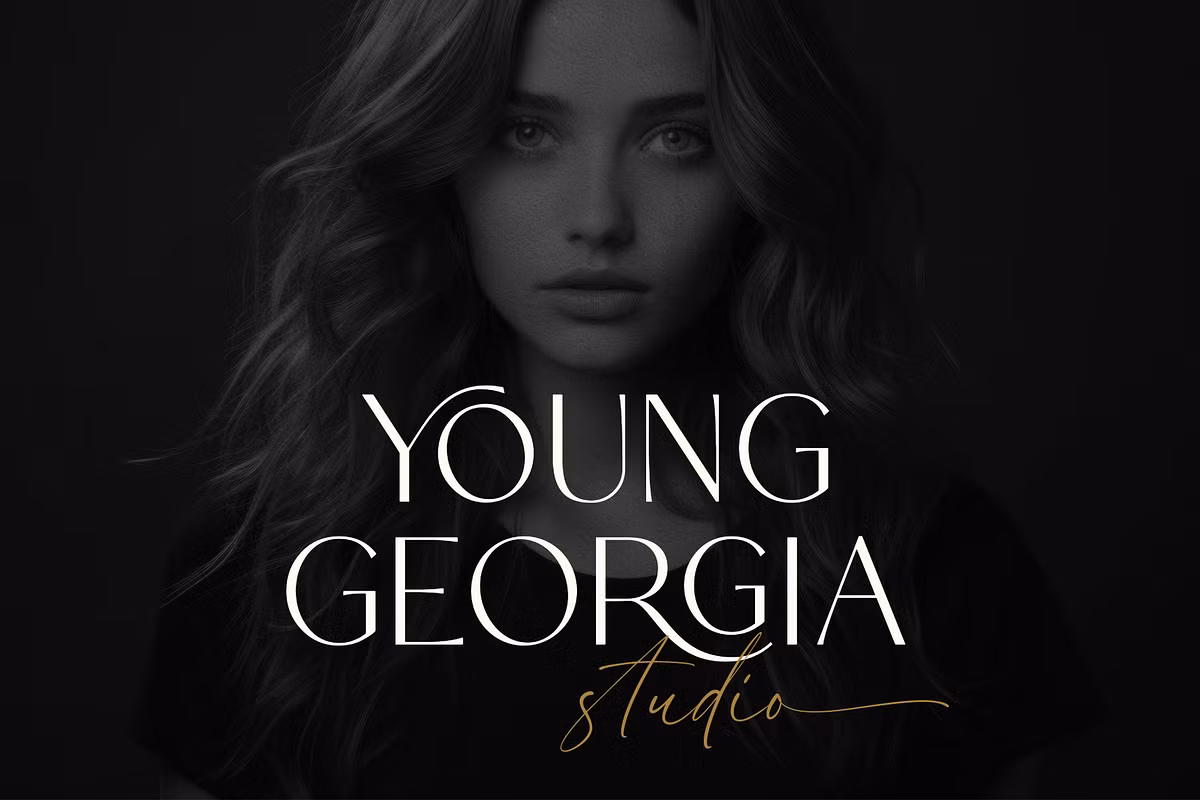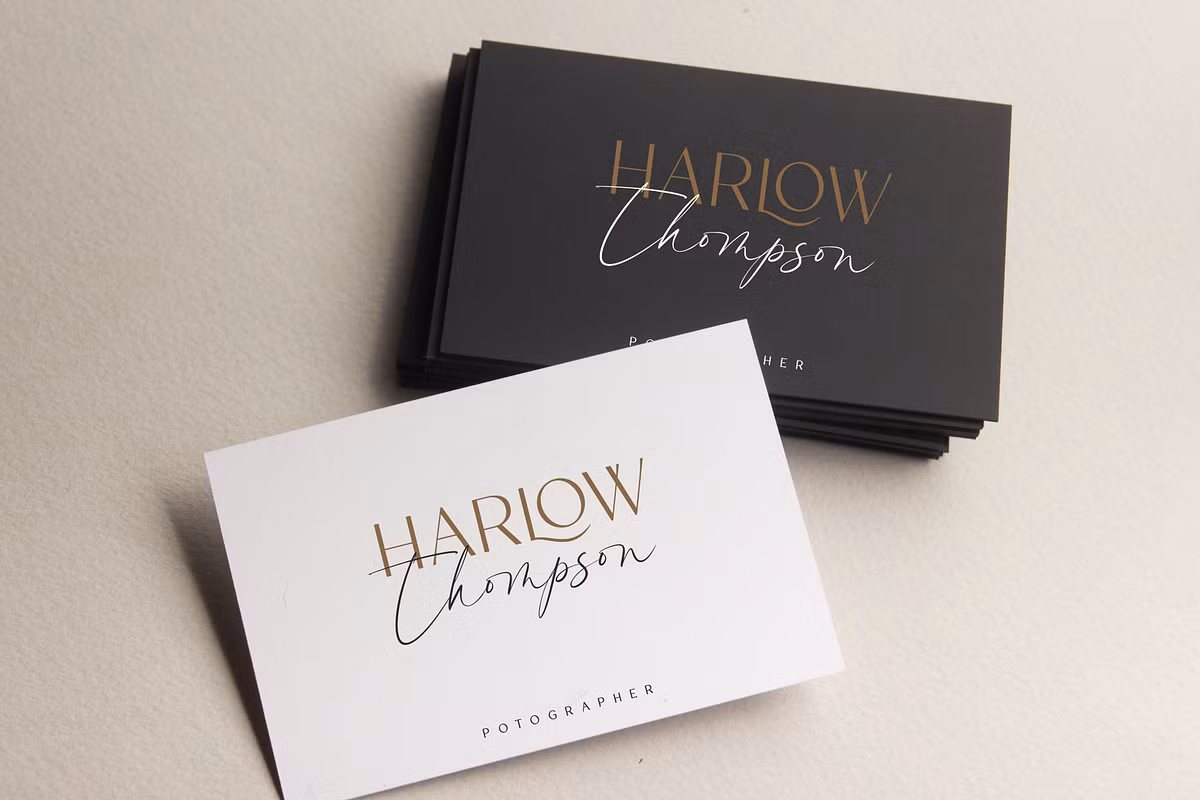
Brown Carolina: Versatile Modern Font Duo for Elegant Design
Meet Brown Carolina, a stylish font pair that combines the simplicity of a sans-serif font with the creativity of a script font. This powerful duo is designed to take your designs to the next level, offering flexibility, elegance, and a hint of classic sophistication. Here, we’ll delve into the details of Brown Carolina, including its key features, ideal uses, suggested pairings, and licensing information, making it a must-have for your design arsenal.
With its unique blend of modernity and timeless appeal, Brown Carolina is perfect for adding a touch of refinement to your projects. Whether you’re working on a professional website, a creative portfolio, or a personal blog, this font duo is sure to impress. So, let’s take a closer look at what makes Brown Carolina so special and how you can use it to elevate your designs.
The Brown Carolina font duo showcases a harmonious combination of modern aesthetics and classic elegance. The sans-serif typeface delivers a clean and contemporary look, making it suitable for a variety of design applications. Its geometric shapes and balanced proportions ensure readability while exuding sophistication.
The Brown Carolina font has a really nice handwritten feel to it, which makes it perfect for projects that need a personal touch. It’s got these beautiful, flowing lines and curves that add a lot of character to your design. When you pair it with its script version, you get a great combination that can work for both fancy and casual stuff.
This duo is really versatile, so you can use it for a lot of different things, from formal to laid-back designs. The script version is especially nice because it adds a touch of artistry to your project, making it stand out in a good way. Overall, Brown Carolina is a great choice if you want to give your design a softer, more human feel.
Character Sets and Features
The Brown Carolina font is really versatile and has a lot to offer. It’s got all the letters you need, both big and small, so you can write in all caps or mix it up. Plus, it’s got a bunch of numbers, symbols, and punctuation marks that make it easy to use. This font is designed to meet all sorts of different design needs, and it’s got everything you need to make your text look great.
Overall, Brown Carolina is a solid font that can help you get the job done. It’s got a complete set of characters, including uppercase and lowercase letters, numbers, and all the symbols and punctuation marks you might need.
The versatility of Brown Carolina makes it suitable for a wide range of design projects. Here are some common applications where this font duo shines:
- Wedding Invitations: The elegant script version lends a romantic touch to wedding stationery, while the sans-serif version provides clarity in information presentation.
- Magazine Layouts: Perfect for editorial design, mixing styles enhances visual appeal.
- Social Media Graphics: Eye-catching posts and stories benefit from the fluidity of the script and the modern touch of the sans-serif.
Brown Carolina’s script version has lots of extra characters and special letter combinations that let you customize your text easily. For example, if you type j_1 through j_8, you can get fancy swashes that add a decorative touch to your writing. These special characters can really make your text stand out and give it a unique look.